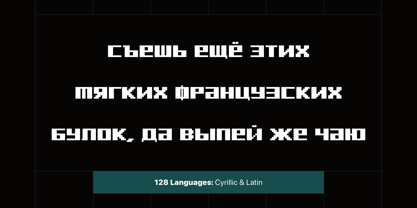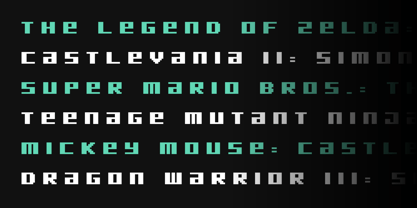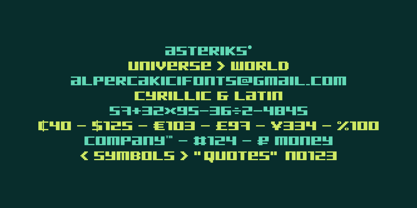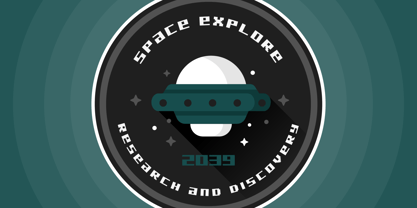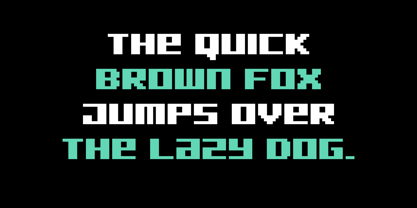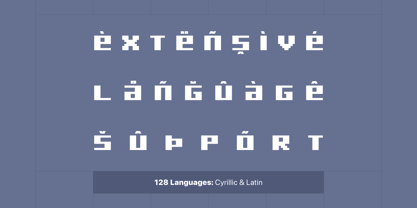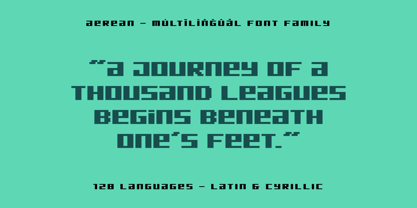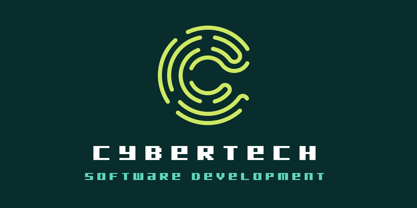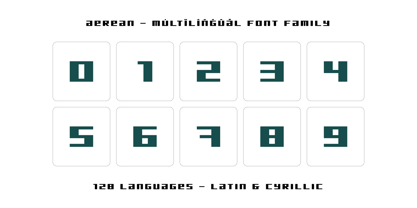
Aerean
by AlperCakici
The Aerean Font Family was designed by Alper Çakıcı and published by AlperCakici. Aerean contains 1 styles.
Aerean - A Display Font : Aerean is a carefully crafted display font. It has Extended Latin and Cyrillic characters. It created for poster, web, brand and social media designs.